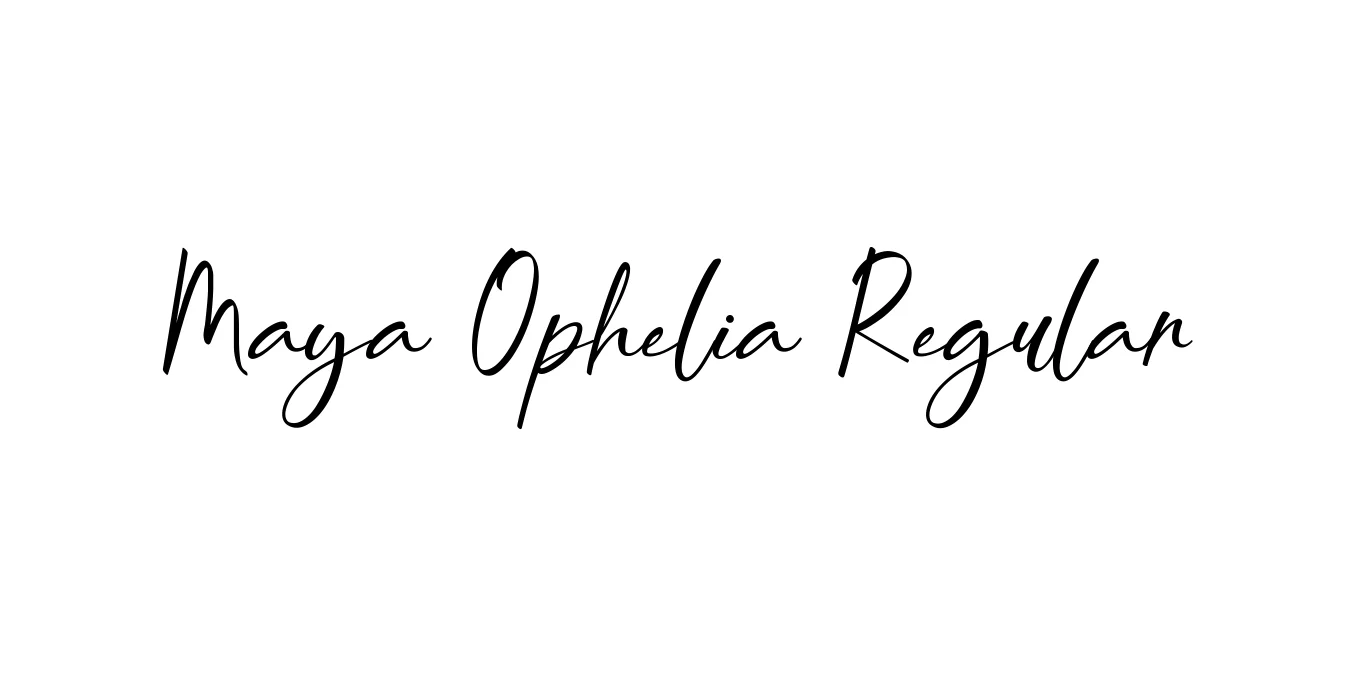
Maya Ophelia Regular
Designed by Creatype Studio (Rian Rahardi)
Maya Ophelia Regular is an exquisite and sophisticated script font characterized by its fluid, hand-drawn strokes and elegant flourishes. Developed with a focus on modern calligraphy, this typeface bridges the gap between classic refinement and contemporary style. The natural flow of the ligatures and the subtle variations in line weight give it an authentic, high-end feel that is ideal for projects requiring a touch of personal elegance and human warmth.
The history of this font is rooted in the modern script movement, where designers sought to create digital typefaces that mimic the organic imperfections of ink on paper. Maya Ophelia has since become a popular choice for luxury branding, wedding stationery, and editorial layouts. It offers a timeless aesthetic that remains versatile across both print and digital media platforms, making it a staple for creators looking for a signature-style aesthetic.
Maya Ophelia Regular Best Uses
Its romantic and fluid strokes make it perfect for formal wedding suites and event stationery.
Excellent for high-end boutique logos, fashion labels, and personal branding projects.
Adds a sophisticated and personal touch to Instagram quotes and aesthetic story overlays.
Ideal for professional photographers looking for a clean yet artistic watermark for their work.
Enhances the visual appeal of beauty, cosmetics, and lifestyle product labels.